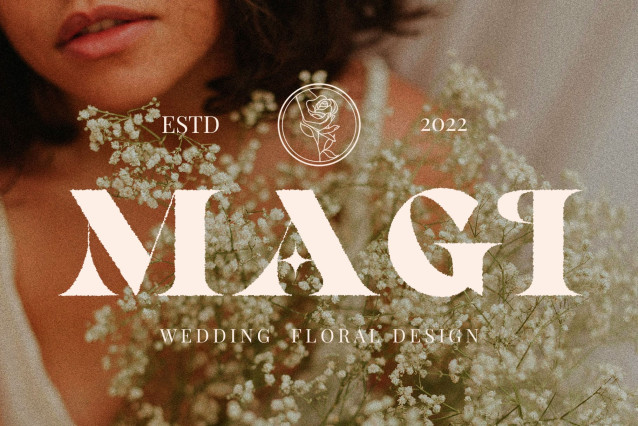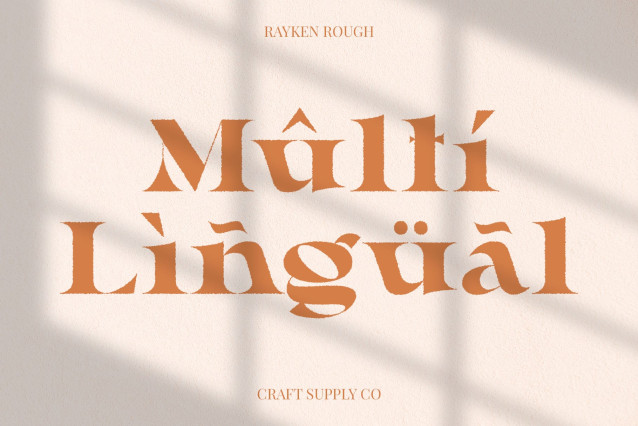
Rayken Rough Font
Rayken Rough Font – Refined Elegance with Artistic Texture
Contemporary Style with Graceful Forms
RaykenRough is a modern serif font designed with clean, stylish letterforms that express quiet sophistication. Its smooth curves and elegant proportions give it a graceful presence, ideal for visual compositions that seek a polished yet approachable look.